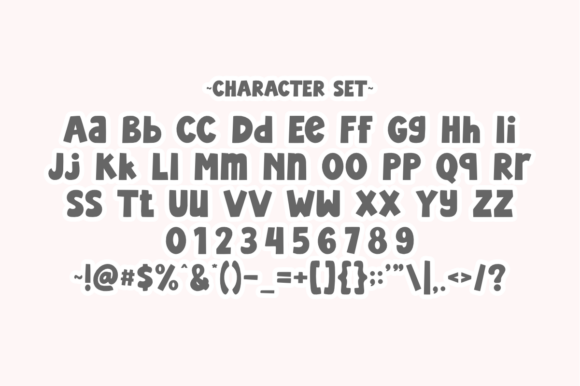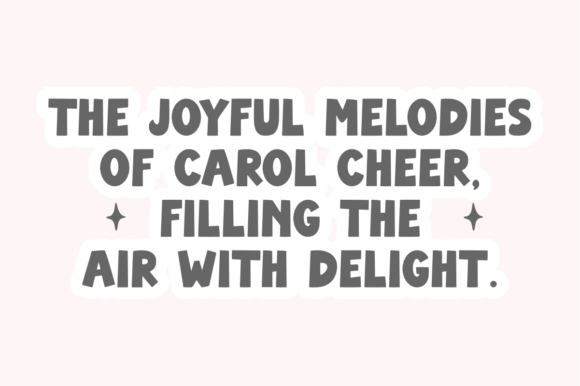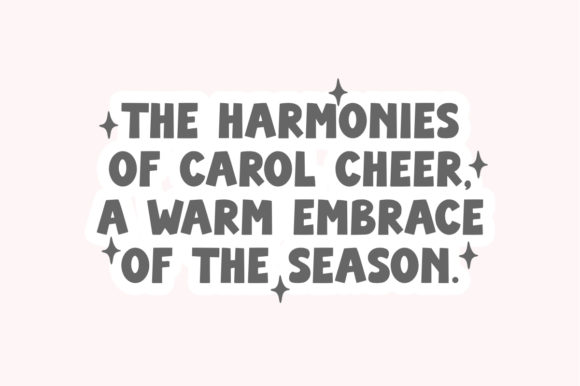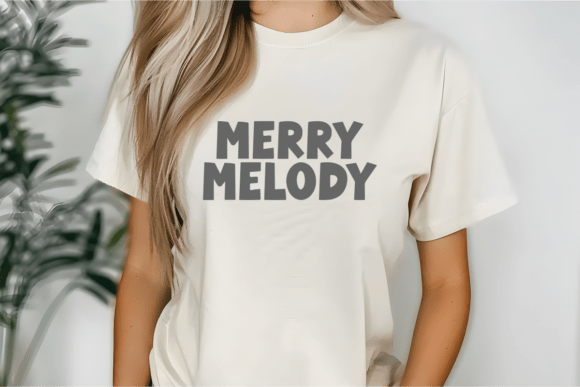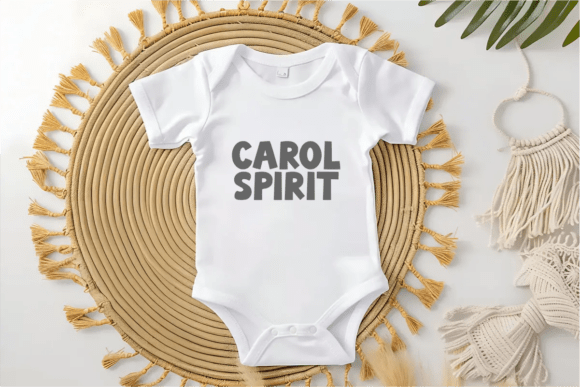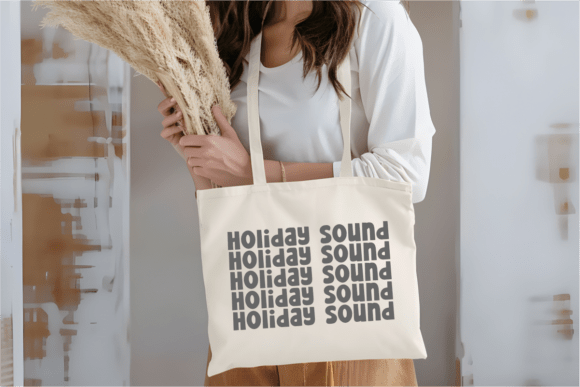
Introducing Carol Cheers Font: The Ultimate Modern Display Font for Cheerful Designs
Are you tired of using the same old fonts in your designs? Look no further than Carol Cheers Font, a bold and playful modern display font that’s sure to bring a cheerful and energetic vibe to your projects. With its slightly irregular, chunky letterforms and fun aesthetic, Carol Cheers is the perfect choice for designers looking to add a touch of personality and excitement to their work.
What Makes Carol Cheers Font So Special?
Carol Cheers Font is a one-of-a-kind modern display font that’s designed to make a statement. Its bold, chunky letterforms are slightly irregular, giving it a fun and playful feel that’s perfect for headlines, branding, posters, children’s books, packaging, social media graphics, and more. Whether you’re looking to create a bold and eye-catching headline or a fun and engaging social media graphic, Carol Cheers Font is the perfect choice.
Carol Cheers Font is a versatile font that’s perfect for a wide range of design projects. Here are just a few ideas to get you started:
- Headlines and Titles: Use Carol Cheers Font to create bold and eye-catching headlines and titles that are sure to grab attention.
- Branding and Logo Design: Add a touch of personality and excitement to your brand with Carol Cheers Font, perfect for logos, business cards, and more.
- Posters and Flyers: Create fun and engaging posters and flyers with Carol Cheers Font, perfect for advertising, promotions, and events.
- Children’s Books and Educational Materials: Use Carol Cheers Font to create fun and engaging children’s books, educational materials, and worksheets.
- Packaging and Product Design: Add a touch of personality and excitement to your product packaging with Carol Cheers Font, perfect for food labels, product tags, and more.
- Social Media Graphics: Use Carol Cheers Font to create fun and engaging social media graphics, perfect for Facebook, Instagram, Twitter, and more.
Why Choose Carol Cheers Font?
So why choose Carol Cheers Font over other modern display fonts? Here are just a few reasons:
- Unique and Playful Aesthetic: Carol Cheers Font has a unique and playful aesthetic that’s sure to stand out in any design project.
- Highly Versatile: Carol Cheers Font is perfect for a wide range of design projects, from headlines and titles to branding and logo design.
- Easy to Read: Despite its bold and chunky letterforms, Carol Cheers Font is easy to read and understand, making it perfect for body text and other applications.
- Great for Kids and Adults Alike: Carol Cheers Font is a font that’s sure to appeal to kids and adults alike, making it perfect for children’s books, educational materials, and more.
How to Use Carol Cheers Font in Your Designs
Using Carol Cheers Font in your designs is easy. Here are just a few tips to get you started:
- Experiment with Different Sizes and Colors: Carol Cheers Font looks great in a variety of sizes and colors, so don’t be afraid to experiment and find the perfect combination for your design.
- Pair with Other Fonts: Carol Cheers Font pairs well with a variety of other fonts, so try pairing it with a serif or script font to add contrast and interest to your design.
- Use for Headlines and Titles: Carol Cheers Font is perfect for headlines and titles, so try using it to create bold and eye-catching headings for your design.
- Add Texture and Patterns: Add texture and patterns to your design with Carol Cheers Font, perfect for creating fun and engaging backgrounds and graphics.
In conclusion, Carol Cheers Font is a bold and playful modern display font that’s perfect for designers looking to add a touch of personality and excitement to their work. With its slightly irregular, chunky letterforms and fun aesthetic, Carol Cheers Font is sure to bring a cheerful and energetic vibe to any design project. Whether you’re creating headlines, branding, posters, children’s books, packaging, social media graphics, or more, Carol Cheers Font is the perfect choice.